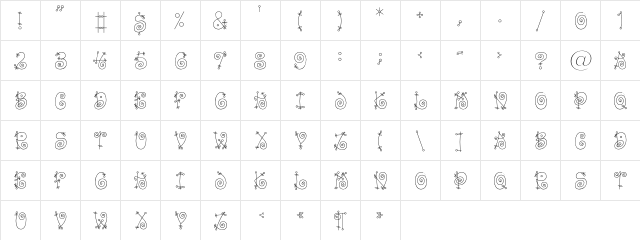
FunnyC Regular
Design Context for FunnyC Typeface
FunnyC trades formality for fun, with bouncy, characterful letterforms that bring warmth and energy to any project.
Font Pairing: Pairs well with a rounded or humanist sans for body copy, maintaining the friendly tone without relying on FunnyC to carry extended reading.
Pro Tip: Avoid using FunnyC for long passages of text — it works best for headlines, labels, and short calls to action.